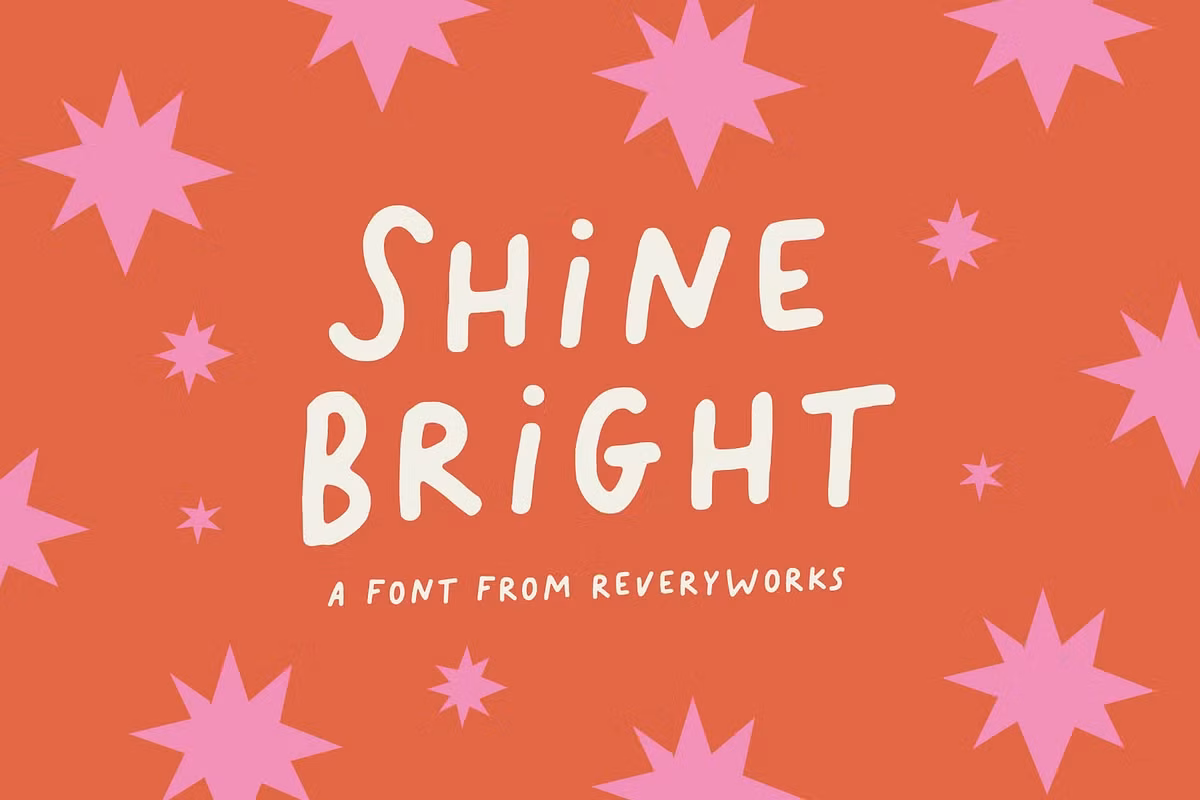
Shine Bright Font Free Download is a bold and vibrant typeface designed to make your designs stand out with confidence and energy. Featuring thick strokes, smooth curves, and a touch of modern elegance, Shine Bright is perfect for creating eye-catching headlines, posters, branding, packaging, and social media content that demands attention.
Its clean yet dynamic structure makes it ideal for projects that need to convey strength, creativity, and style. Whether you're designing a motivational quote, a modern logo, or a fun product label, Shine Bright adds a pop of personality to your typography.
Designers love Shine Bright for its readability, versatility, and bold character across both print and digital media. Ready to illuminate your designs? Download Shine Bright Font Free Download and let your typography shine with flair.